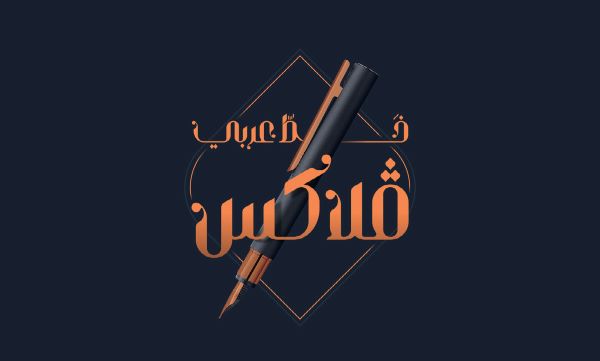
VLAX Font
VLAX by Anyone ae® is a bold bilingual display typeface that bridges Arabic and Latin letterforms within a single cohesive visual system built for impact. Its confident, geometric construction gives both scripts a shared visual authority. The design avoids the usual friction of bilingual font design, instead arriving at something that feels unified rather than translated. Free for personal and commercial use.
VLAX is a powerful bilingual Arabic and Latin display typeface in our free font collection, designed by Anyone ae® — a type designer based in Turkey with a dedicated practice in dual-script typefaces built to serve Arabic and Latin writing systems with equal creative ambition. Browse our full library of free fonts and discover more distinctive typefaces crafted by independent designers around the world.